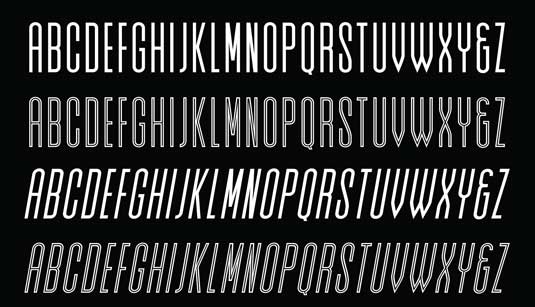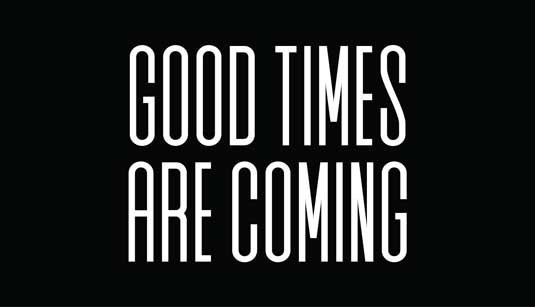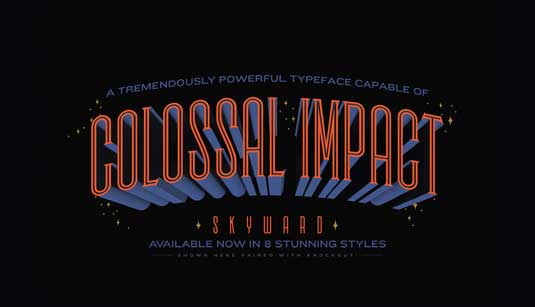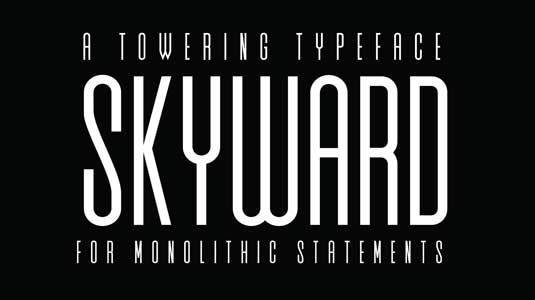
Font of the day: Skyward
Skyward by Jason Carne and Drew Melton
This eye-catching typeface Skyward was the result of a collaboration between type designers Jason Carne and Drew Melton. Available from Ten Dollar Fonts, Skyward is described as being 'robust, towering and geometrically refined – the perfect selection for modern, chic and luxury products and packaging, as well as bold ad campaigns'.